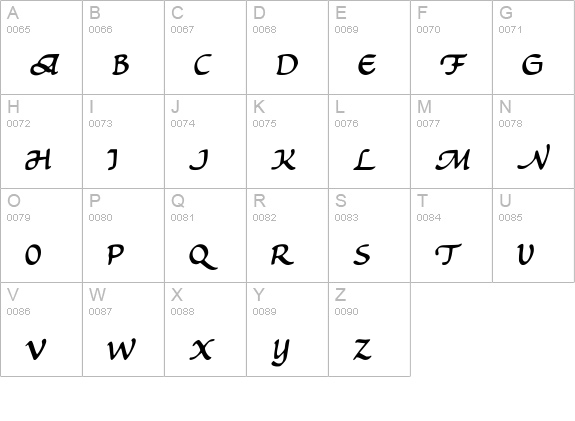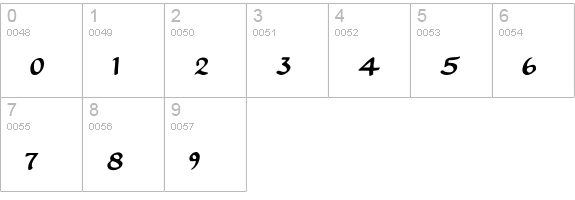
Michaelmas font is a stunning and versatile typeface that exudes elegance and sophistication. With its classic yet modern design, this font is perfect for a wide range of projects, from branding to editorial design. Its clean lines and sharp edges give it a sleek and professional look, while its unique flourishes add a touch of personality and flair. What sets Michaelmas font apart is not just its beautiful design, but also the fact that it is completely free to download. Available at FontsMarket.com, this font can be easily accessed by anyone looking to add a touch of style to their work without breaking the bank. Whether you're a designer, a blogger, or a business owner, Michaelmas font is a fantastic choice for all your typography needs. So why wait? Download Michaelmas font today and elevate your projects with this exquisite typeface that is both elegant and free for all to enjoy.